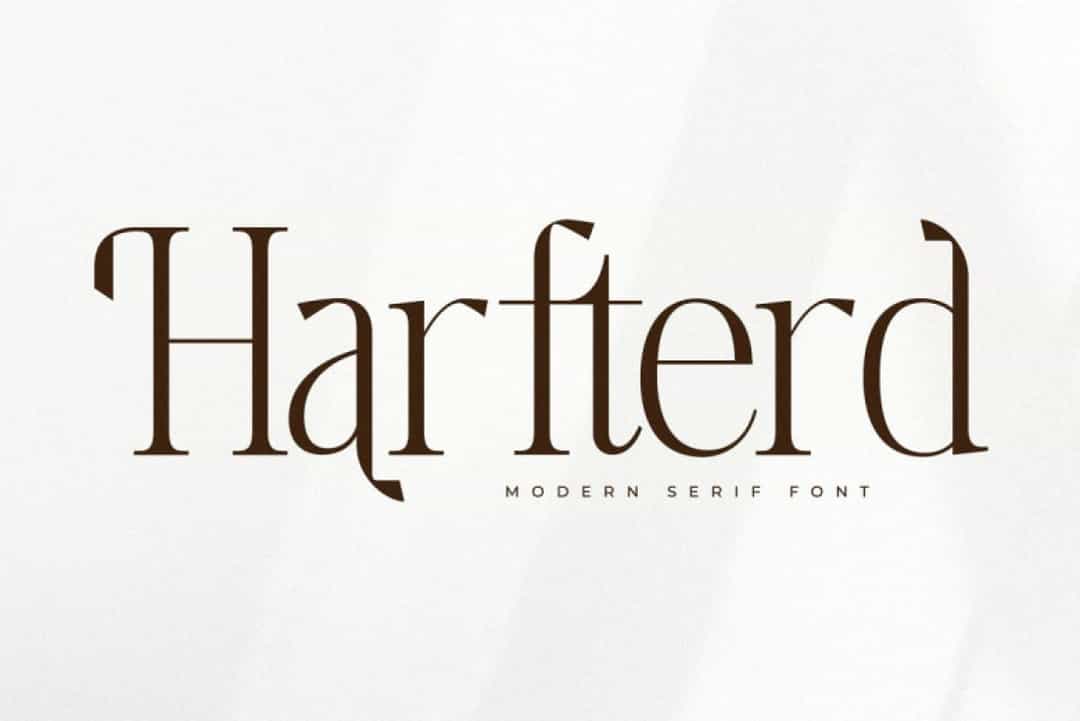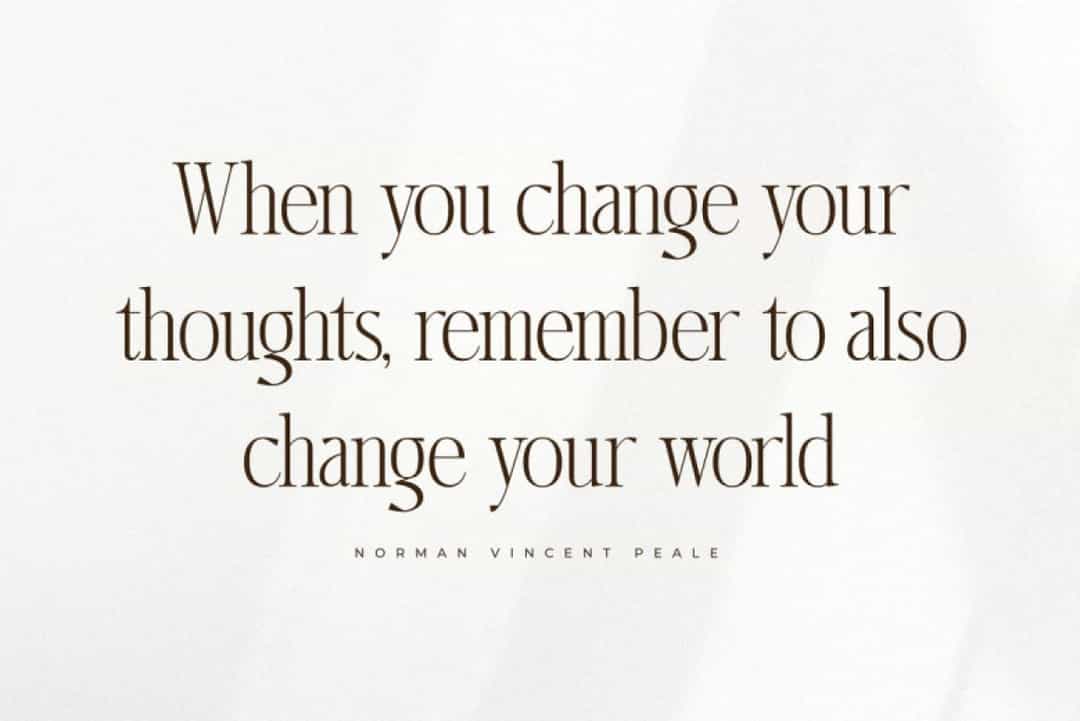
Discover Harfterd Font, part of the Serif collection—a versatile and unique font perfect for adding a personal touch to your projects. Download it for free and enjoy crafting designs with style, from invitations to social media posts. This font is available exclusively for personal use, giving you the freedom to create without limits. Unlock your creativity with Harfterd Font today!
Harfterd Contemporary Serif Font by Letterena can be used in all sorts of designs, from logos and branding design for homeware packaging products and mugs, posters and quotes to clothing bags cover for books and name cards, greeting cards, invitation cards, labels & watermarks as well as photography or special occasions projects that need luxurious serif flair.